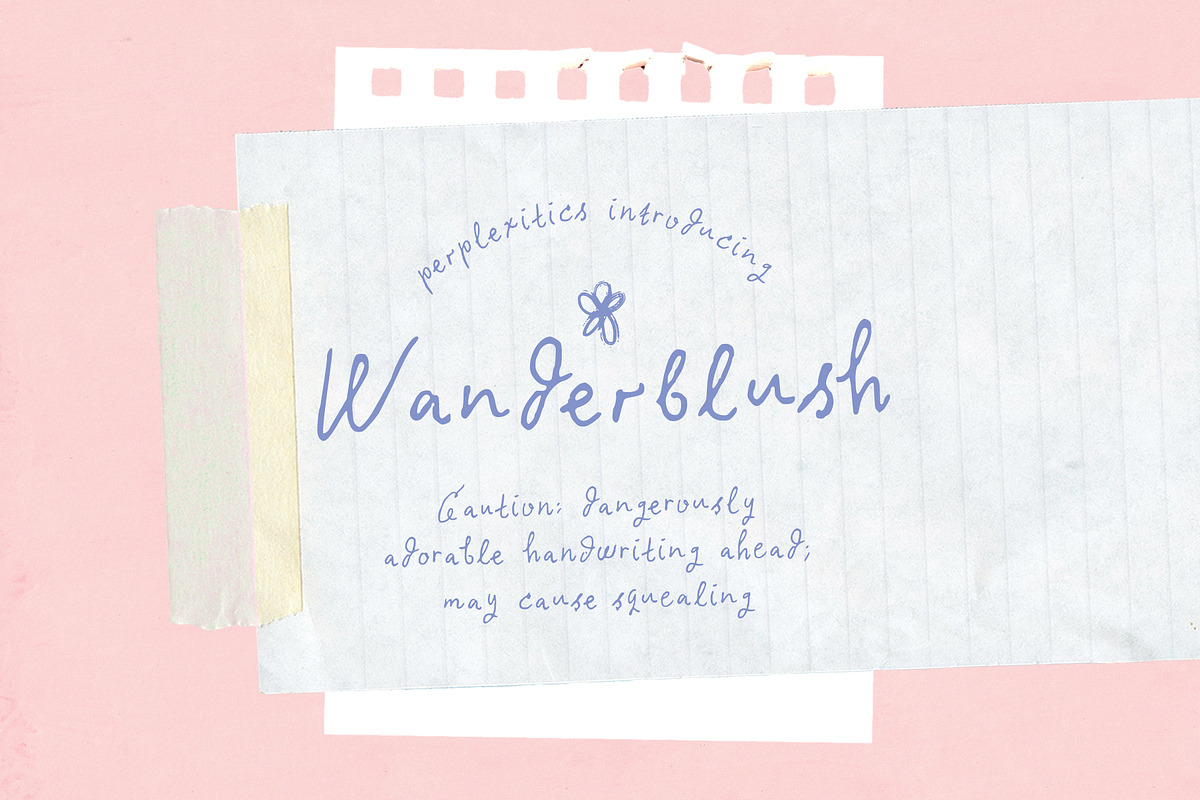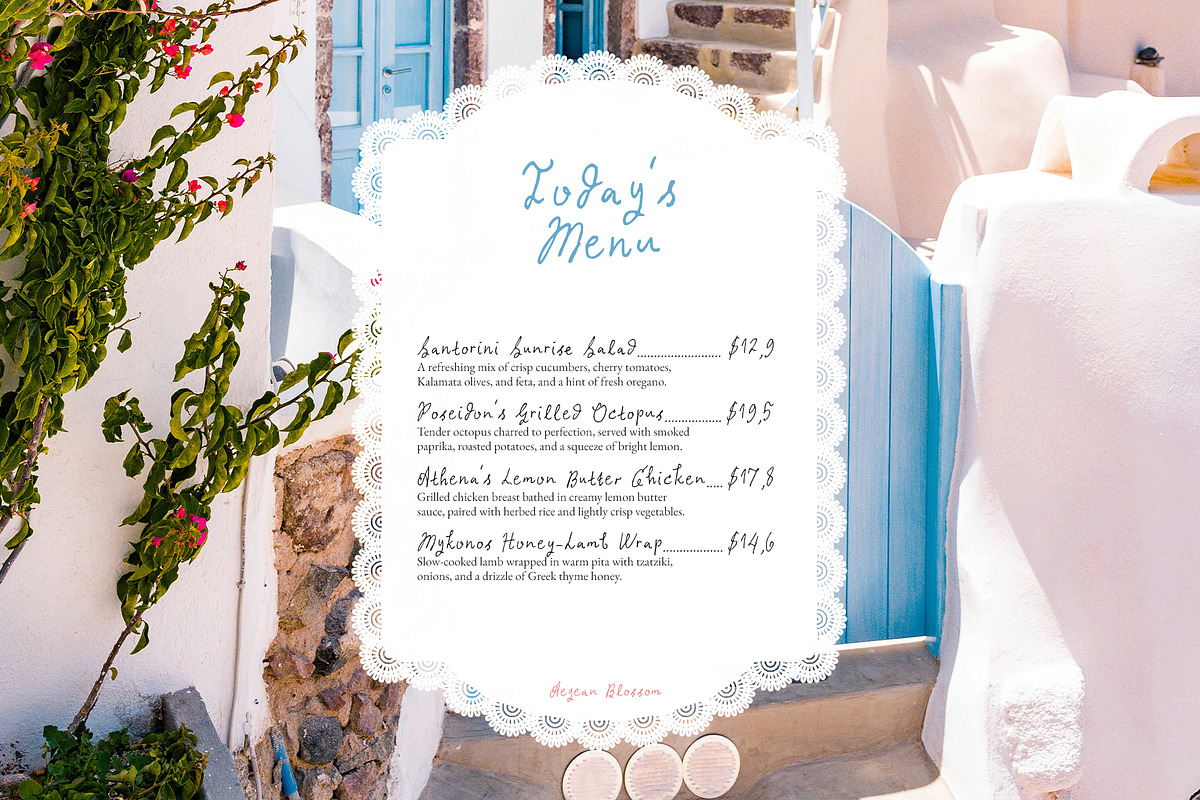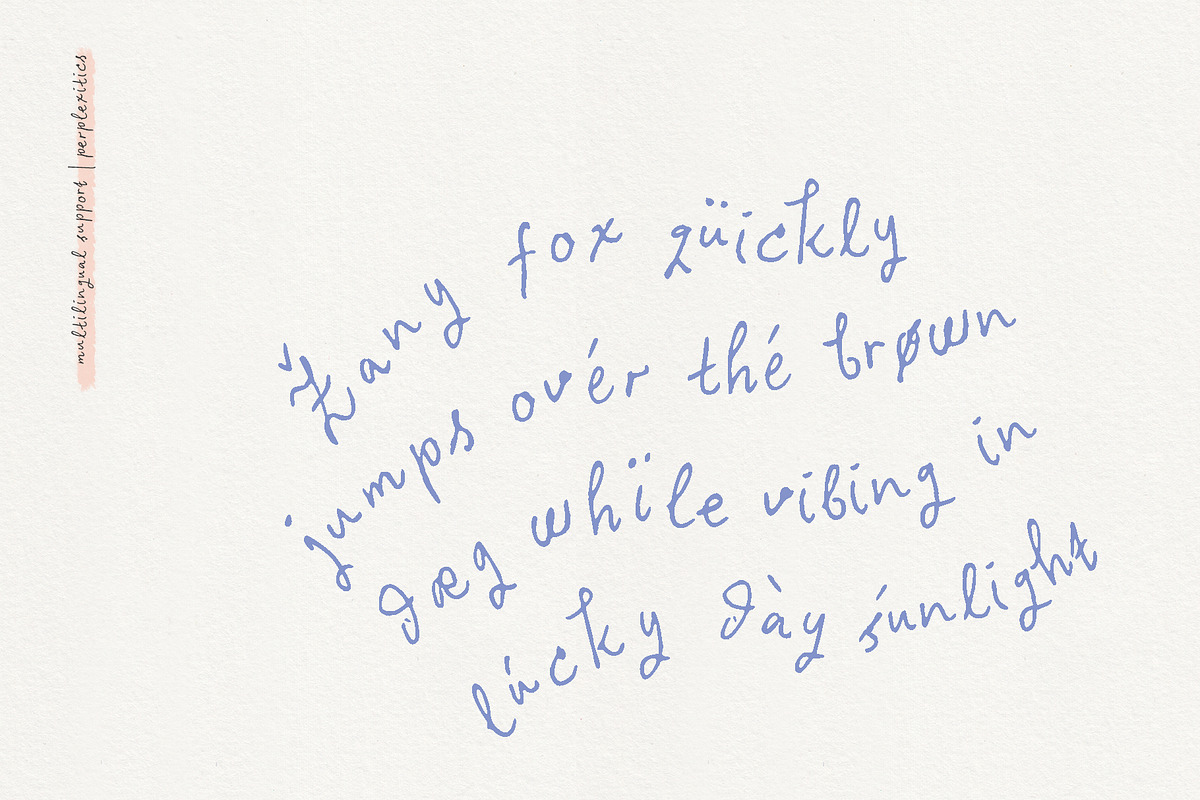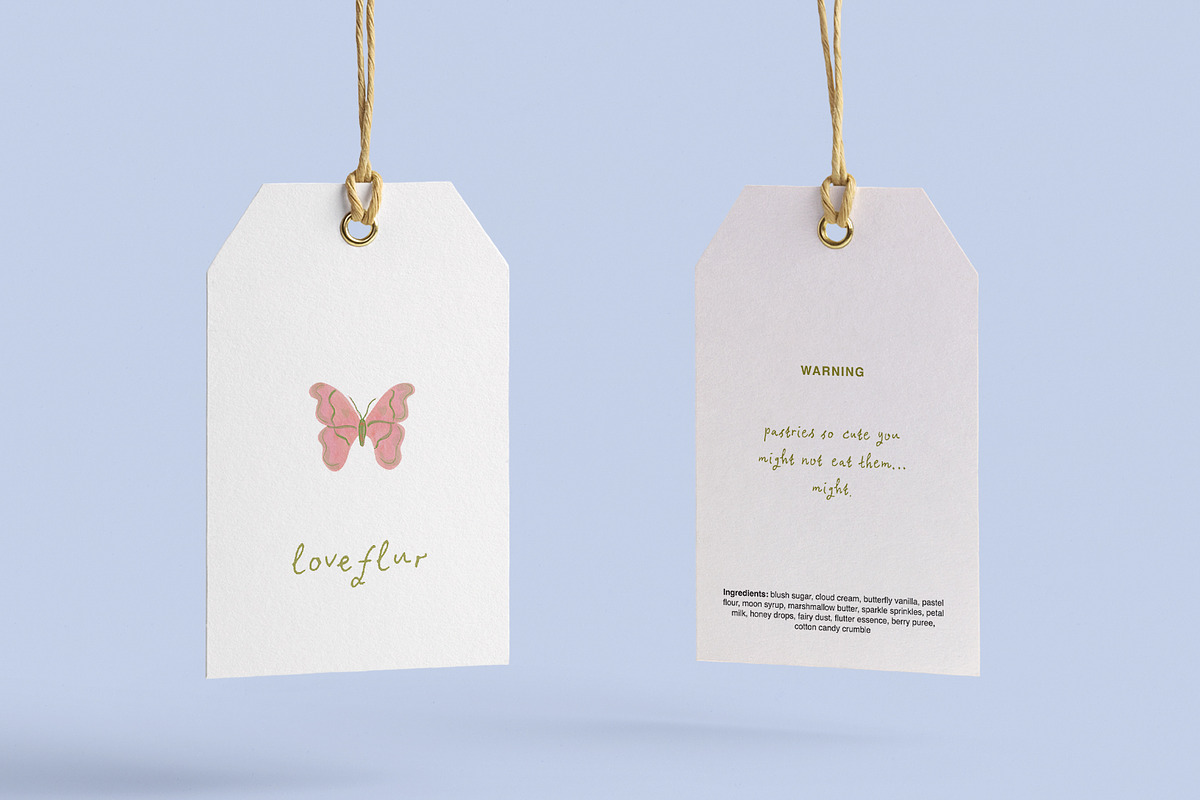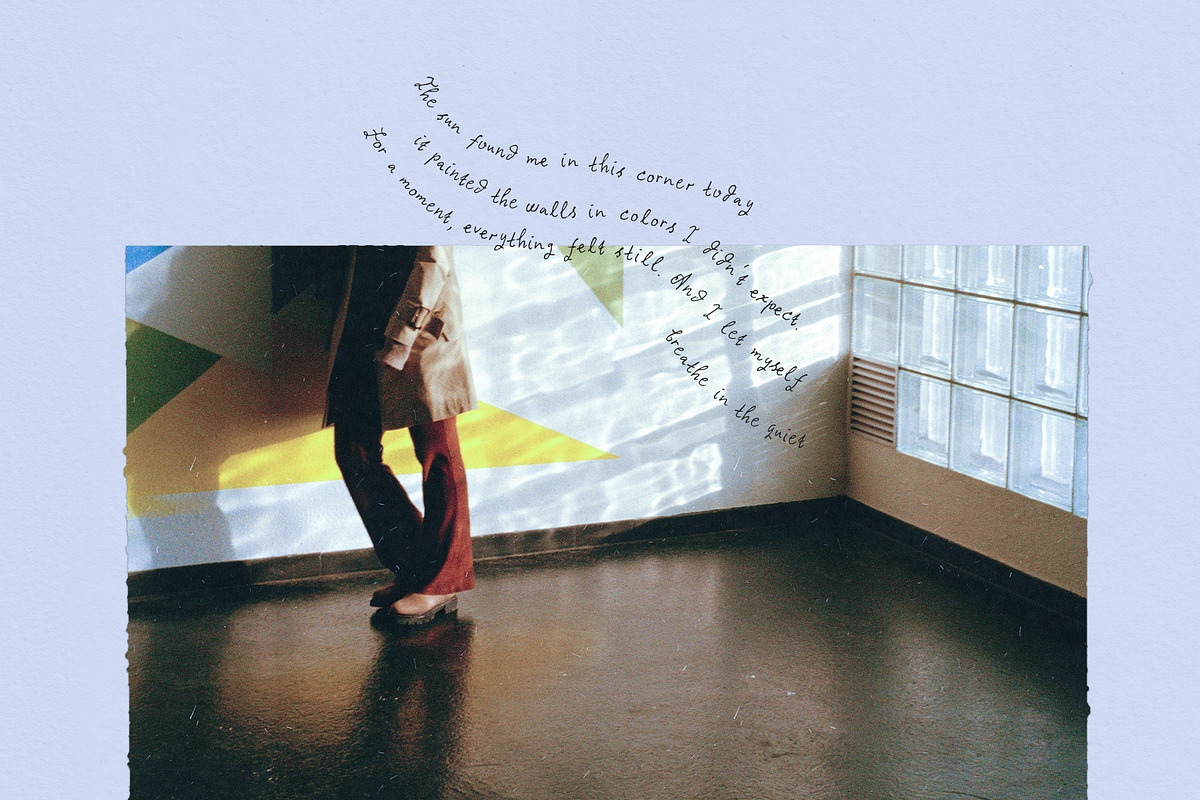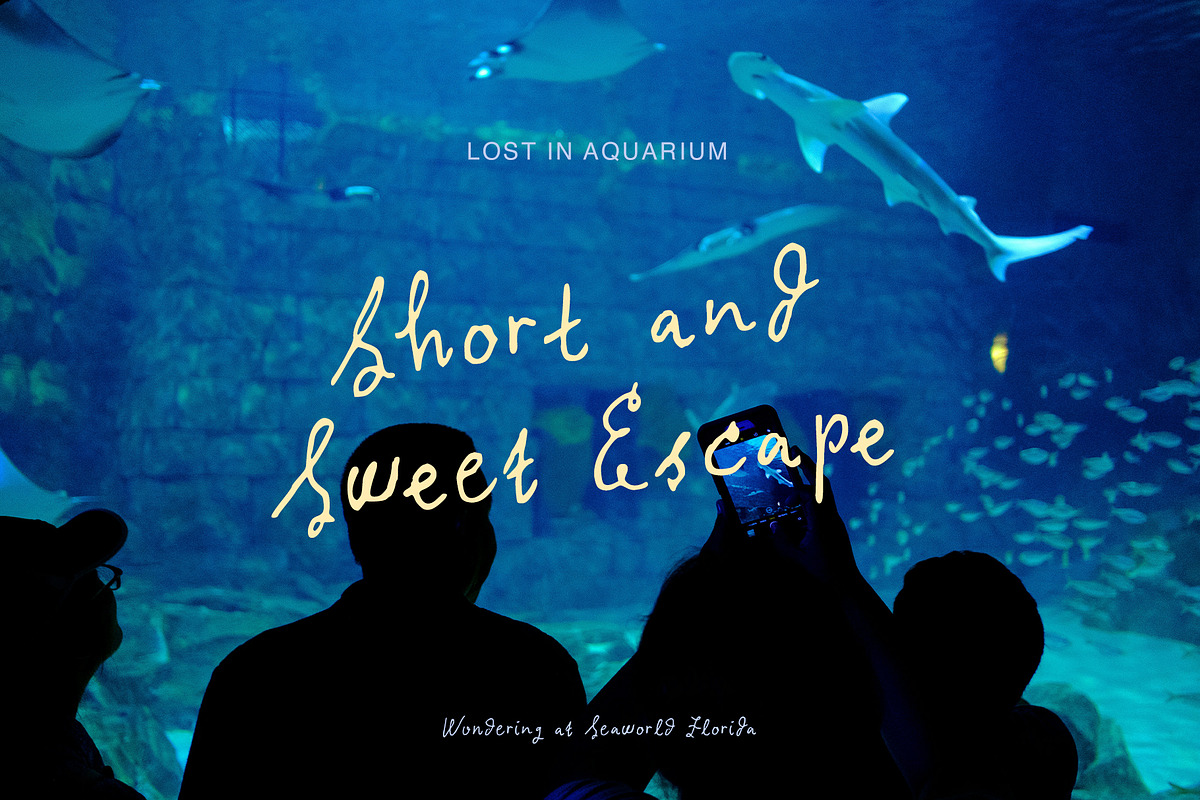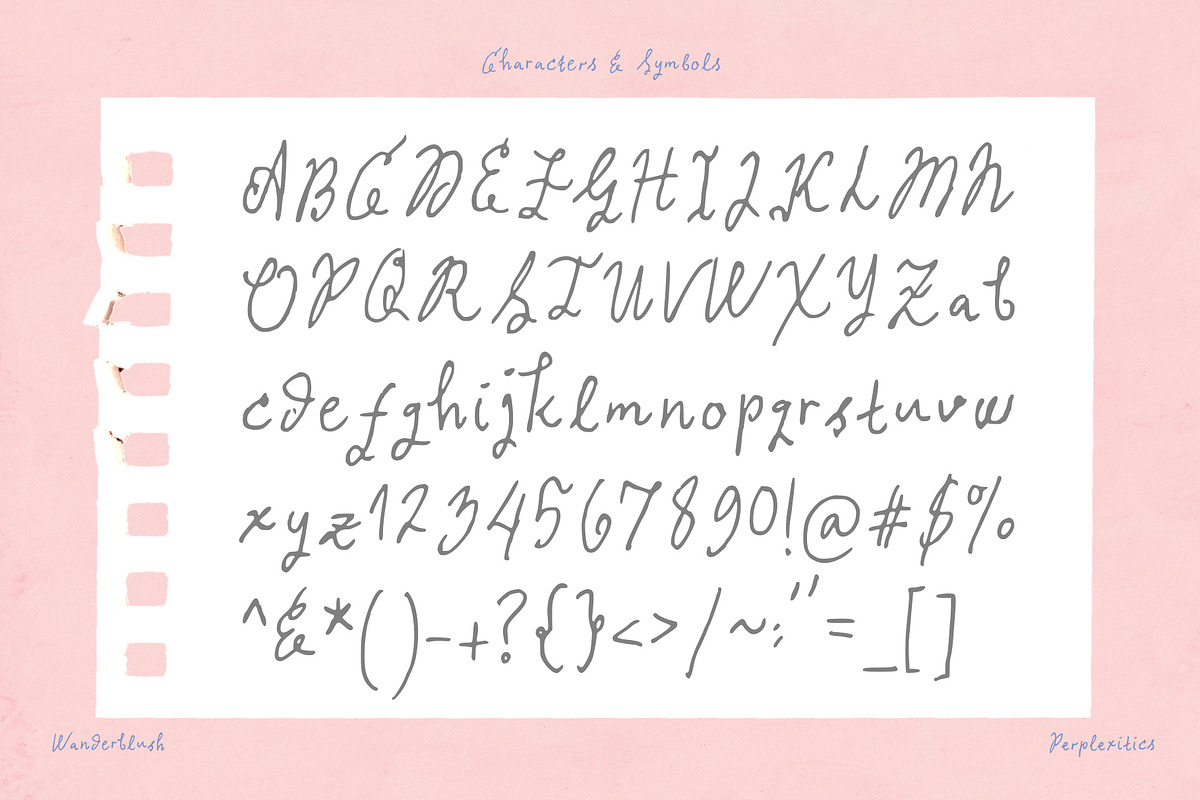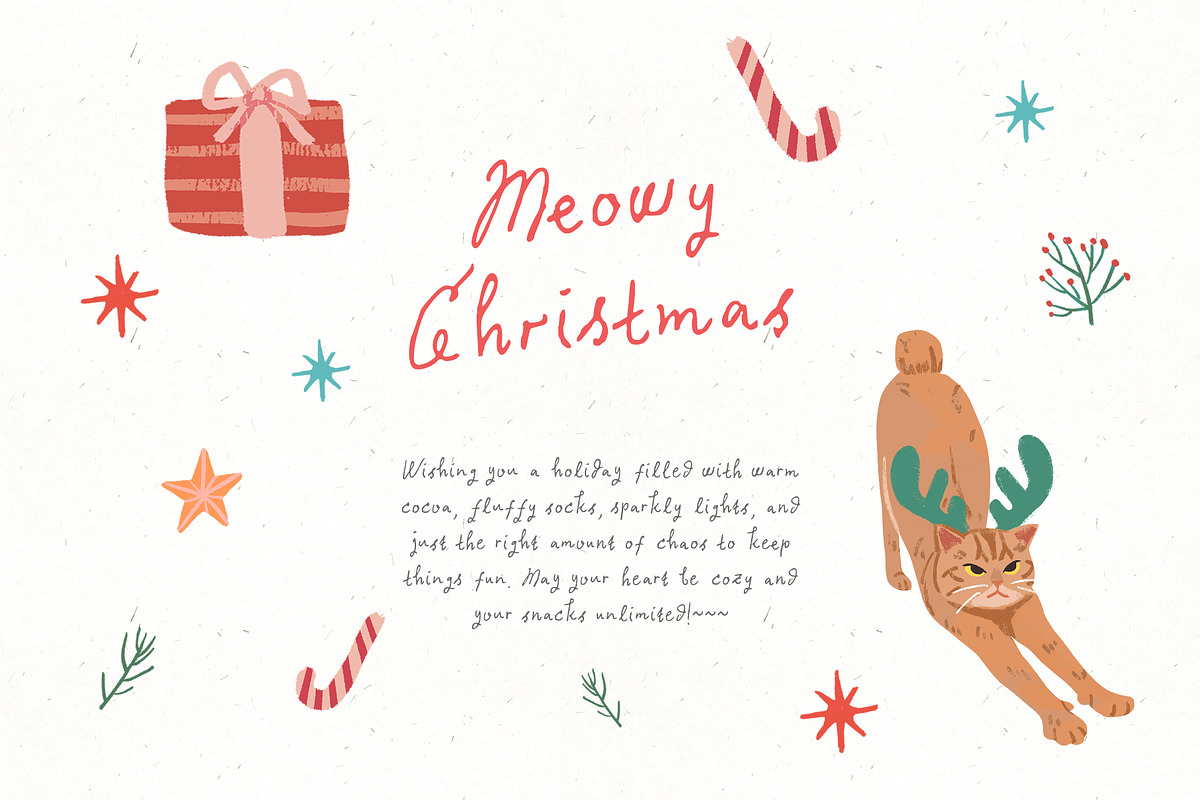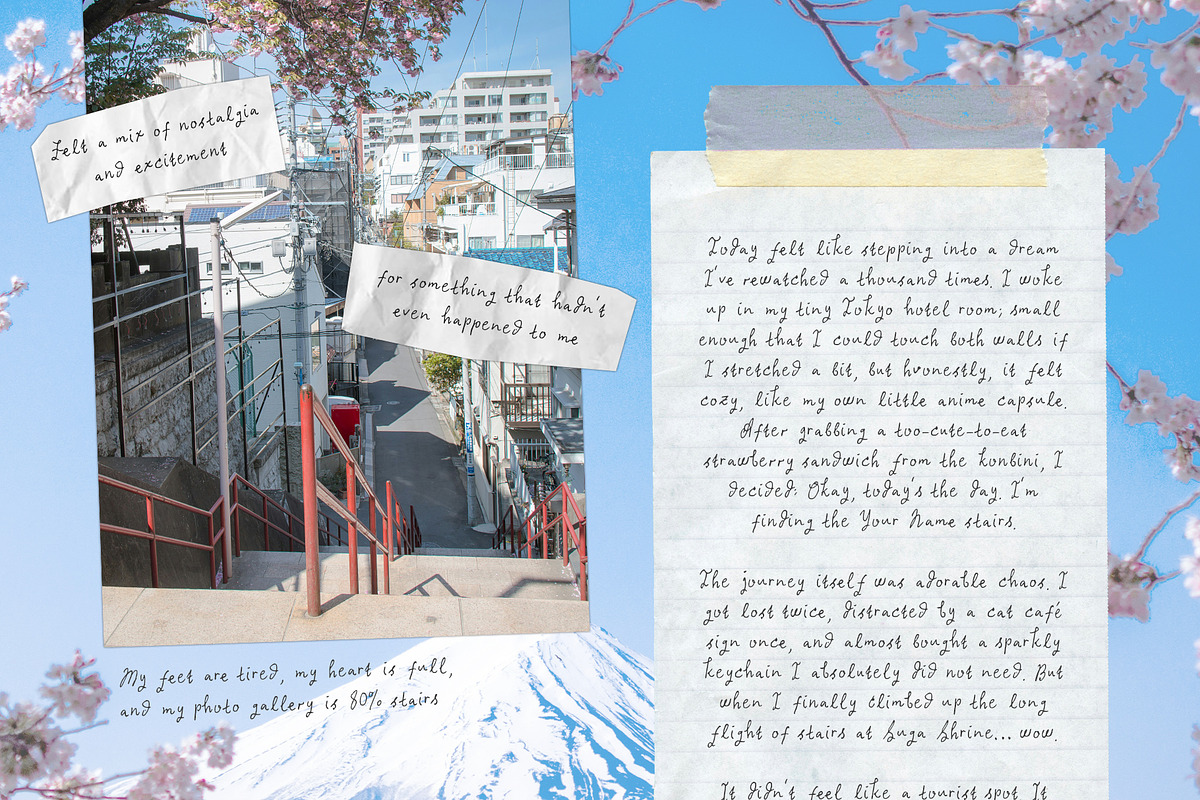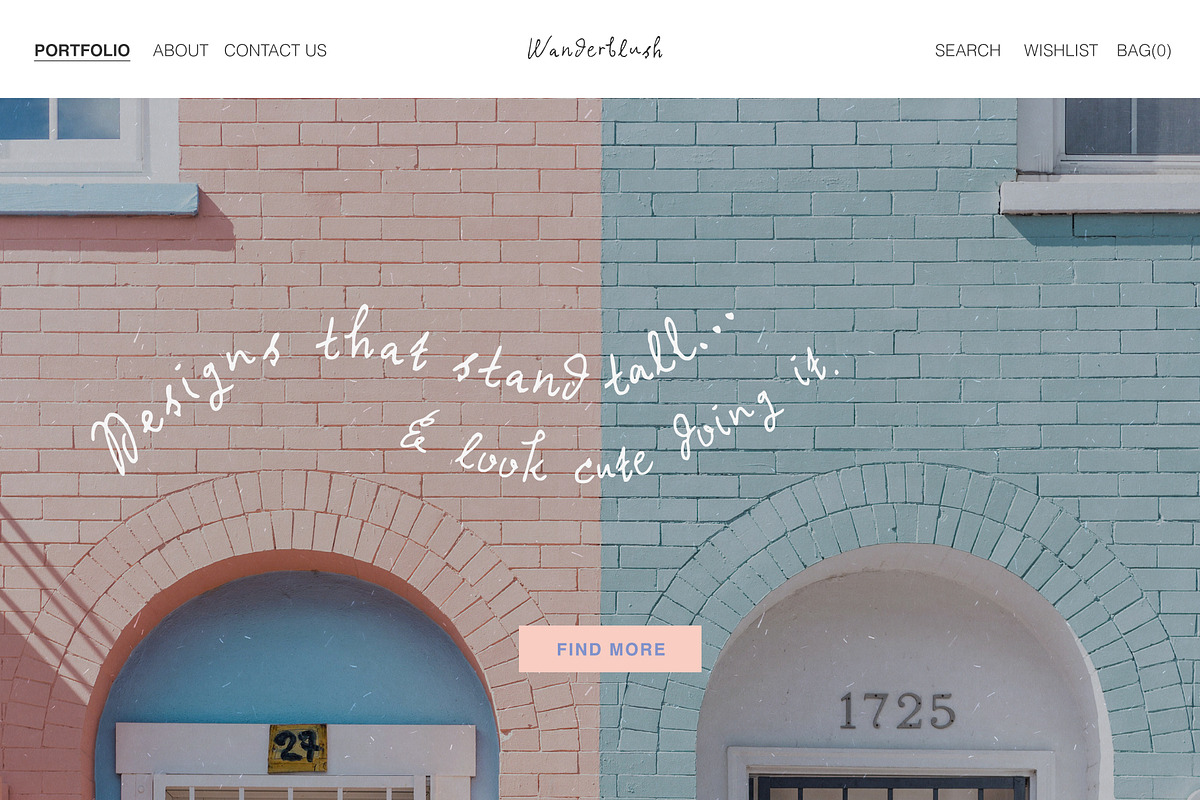
Wanderblush Adorable Handwritten
Wanderblush is a sweet, cute, and slightly silly handwritten font. Perfect for logos, quotes, stationery, and all things that sweet and charming. Wanderblush Handwritten Font is packed with everything you need, including uppercase and lowercase letters, numbers, and punctuation. Multilingual support.